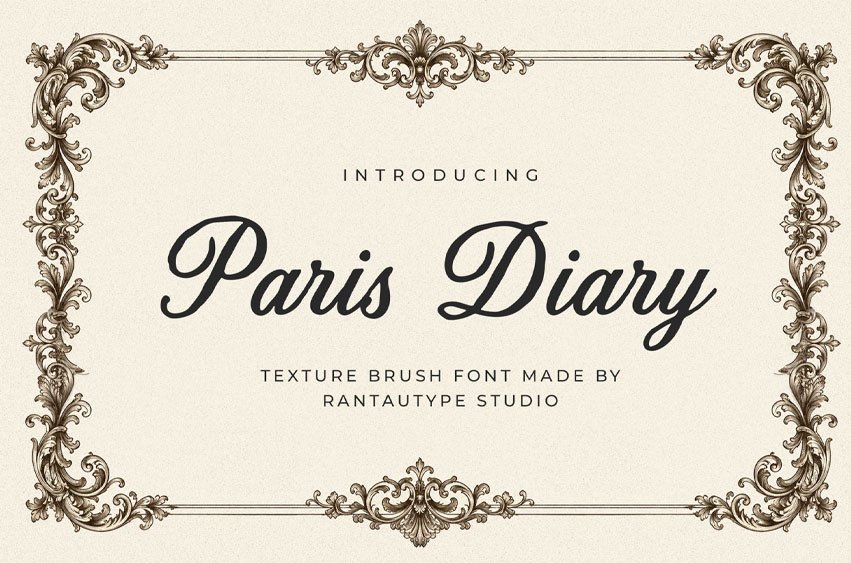
Paris Diary Font is texture brush font embodies the beauty of imperfection, capturing the expressive flow of real brush strokes on canvas. Each character is crafted with organic movement, showcasing uneven edges, ink variations, and subtle splatters that reflect the authenticity of handmade artistry.
Paris Diary is a perfectly choice for any creative endeavor, creating, modern, lifestyle design such as logotype, title, cover, branding, invitations, wedding designs, display and magazine, social media posts, advertisements, printed quotes, product packaging, corporate brand, product designs, labels, photography, watermarks, special events and any other project with vintage touch.